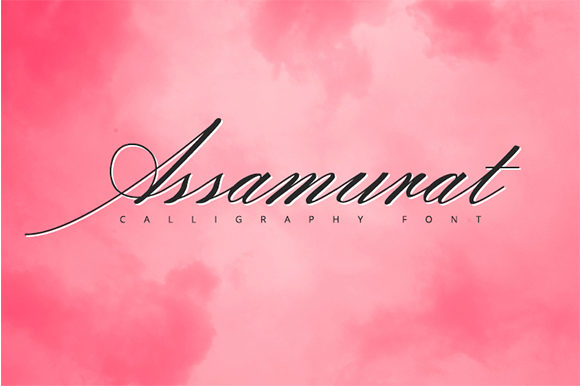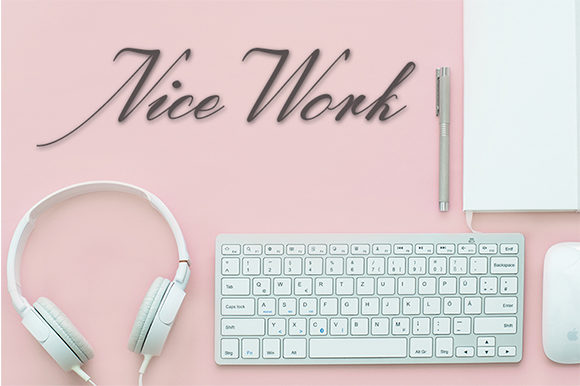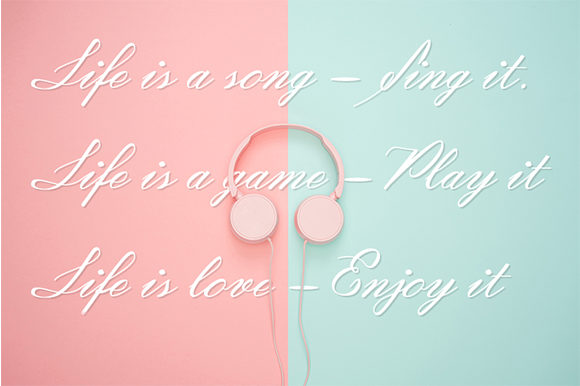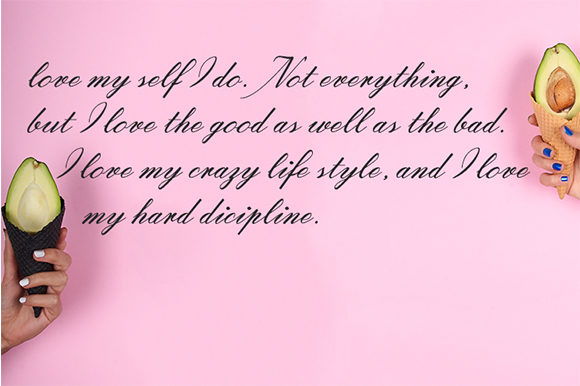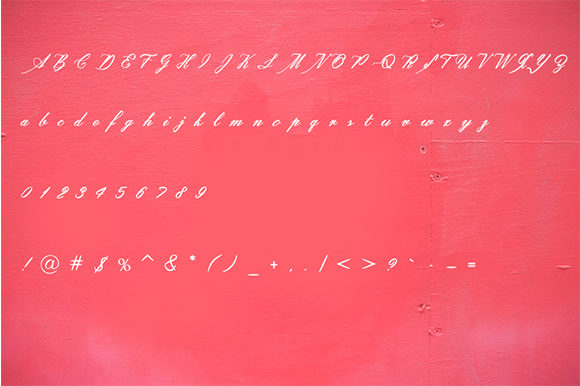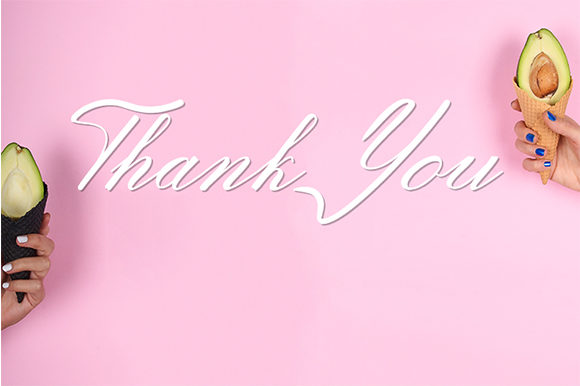
Assamurat Font
About Assamurat Font
Assamurat is a sweet and delicate handwritten font that updates classic calligraphy with a modern style. Fall in love with its timeless elegance.